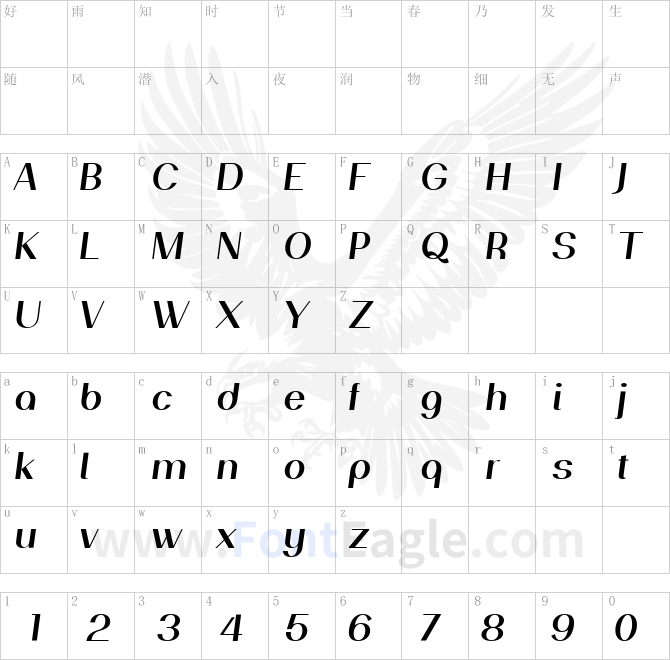
- Font name:PassionSansPDaj
- Font Subfamily:SemiBoldItalic
- Font Subfamily ID:1.000;pyrs;PassionSansPDaj-SemiBoldItalic
- Font Full Name:PassionSansPDaj-SemiBoldItalic
- Postscript:PassionSansPDaj-SemiBoldItalic